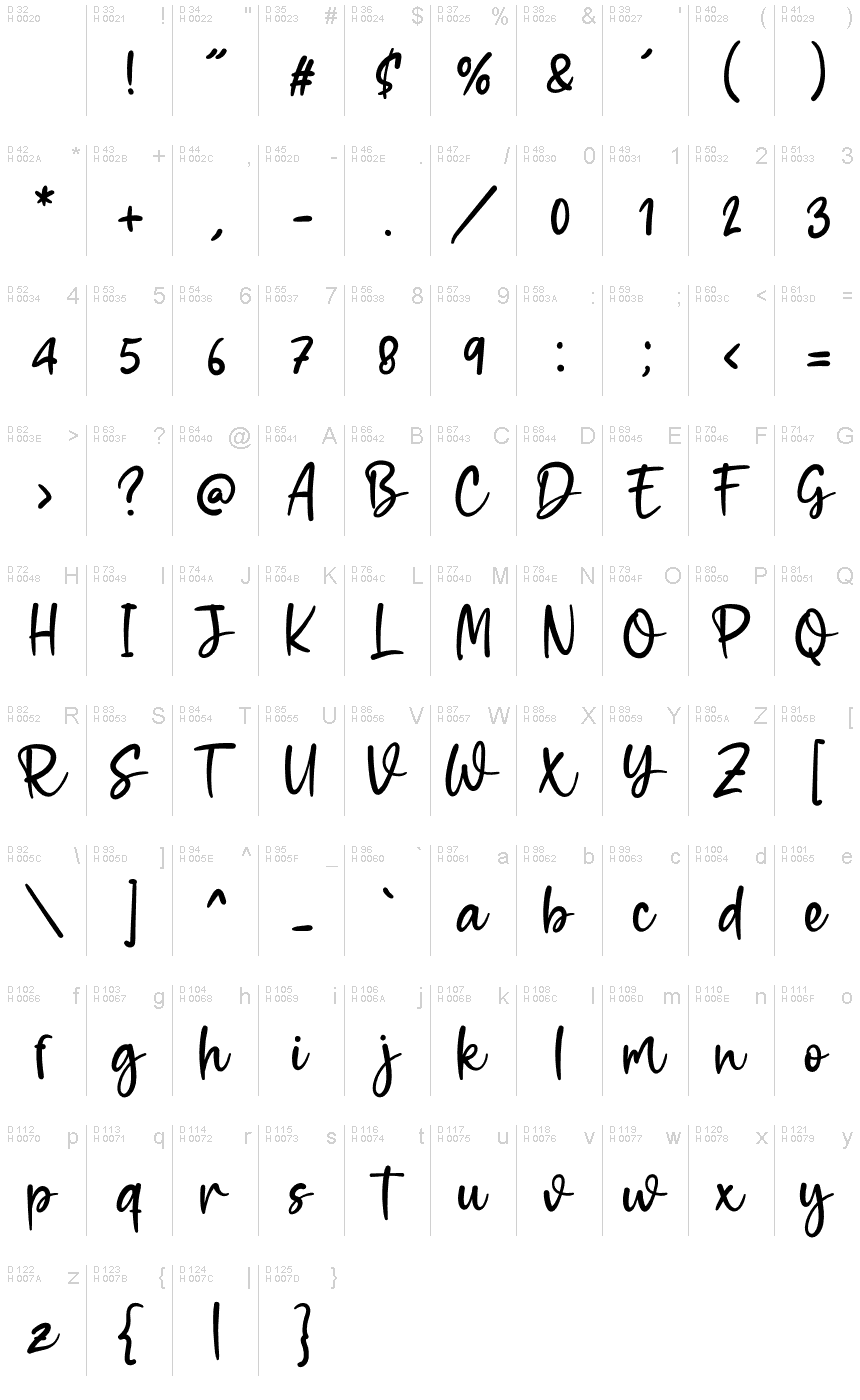
MonilkaSouthisRegular
Monilka Southis, a charming handwritten font by Scratchones, adds a touch of elegance and personality to any project.
With its fluid lines and delicate strokes, this font is perfect for wedding invitations, love letters, or any romantic-themed design. Its playful yet sophisticated style also makes it suitable for children's books, greeting cards, and whimsical illustrations. Monilka Southis brings warmth and authenticity to your branding materials, packaging designs, and social media graphics.
Let this versatile font breathe life into your projects with its unique handcrafted appeal.
The latest style letters are perfect for wall displays, wedding invitations, social media post logos, advertisements, product packaging, product designs, labels, photography, watermarks, invitations, stationery, and any project that requires taste handwriting.